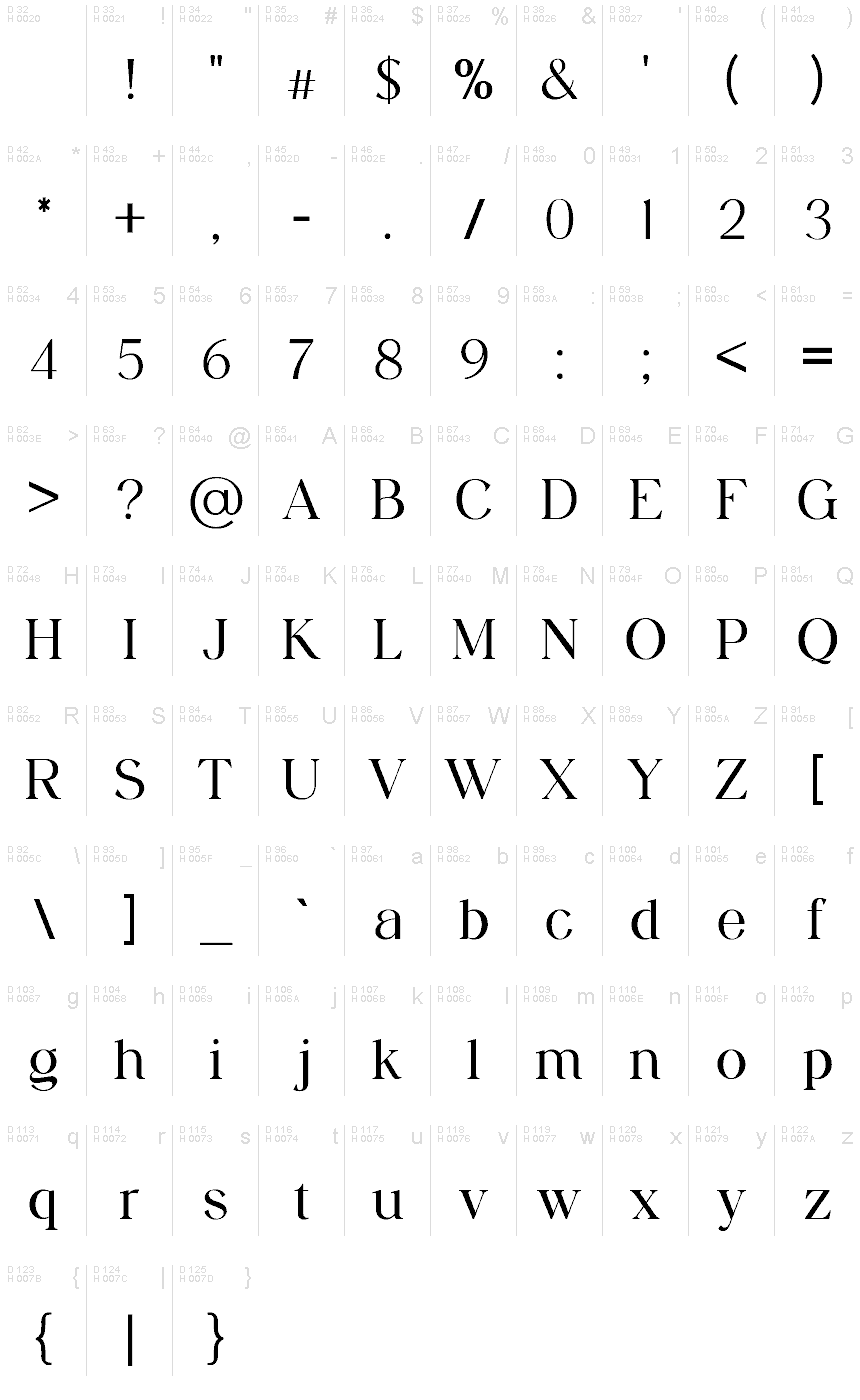
Grandiosity Regular
Grandiosity font by UI Creative is a classic free serif font that promotes sophisticated and professional designs. Its elegant and refined style immediately elevates the quality of appearance of body text, headings, or logotypes. Use it for a pleasant reading experience or for eye-catching modern branding projects.